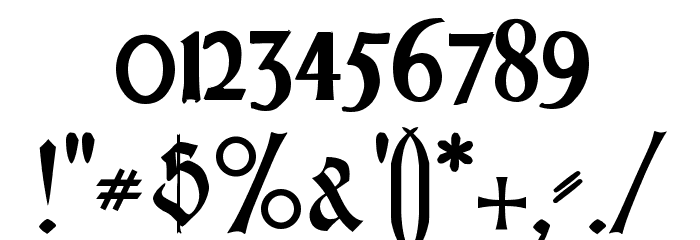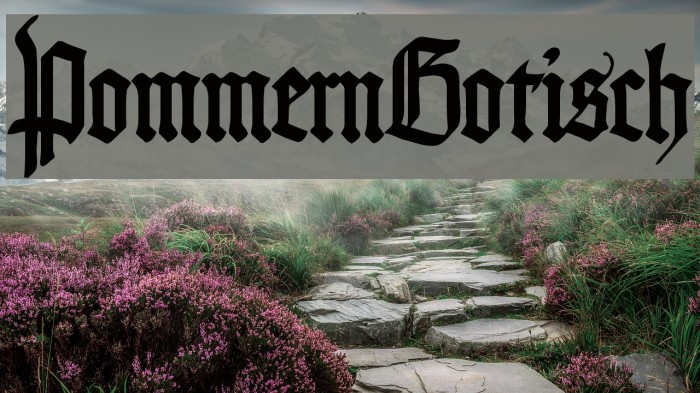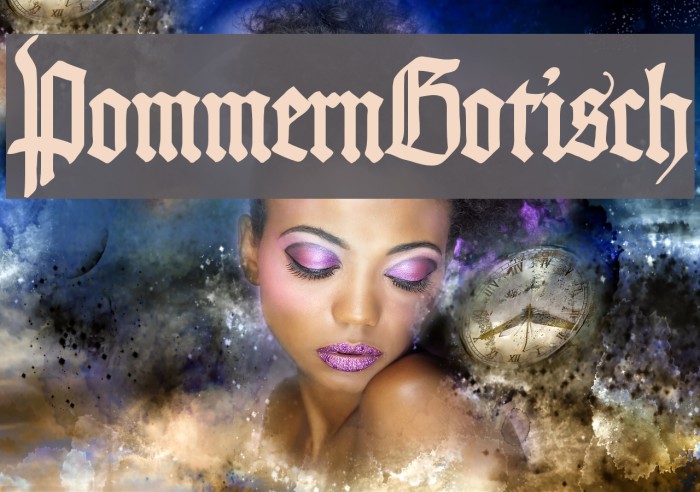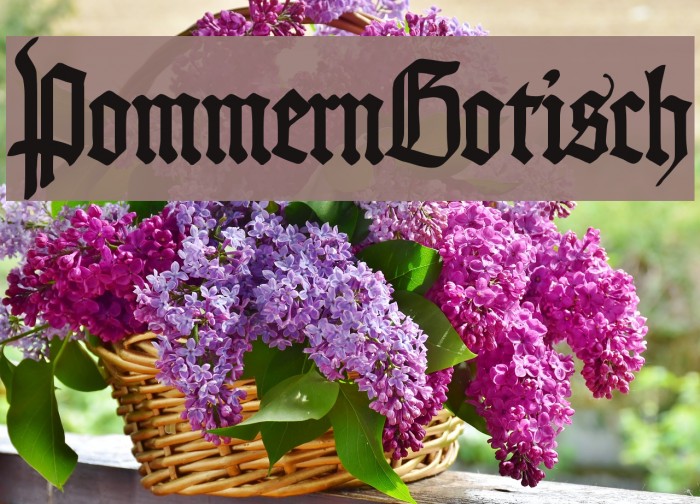
PommernGotisch Font
This font exudes a traditional and historical aura, reminiscent of medieval manuscripts and Gothic architecture. The characters are intricately designed with sharp, angular strokes and elaborate serifs, creating a sense of grandeur and formality. The uppercase letters are particularly ornate, with decorative flourishes that enhance their majestic appearance. The lowercase letters maintain a consistent style, offering a harmonious blend with the uppercase. Numbers and special characters are crafted with the same attention to detail, ensuring a cohesive look across all elements. This font is ideal for projects that require a touch of elegance and historical authenticity.
A decorative Gothic-style font with intricate, angular strokes and elaborate serifs.
• Proposed Projects: Ideal for historical documents, wedding invitations, book covers, and branding that requires a classic and elegant touch.
• Category: Blackletter
• Overall Style: Vintage